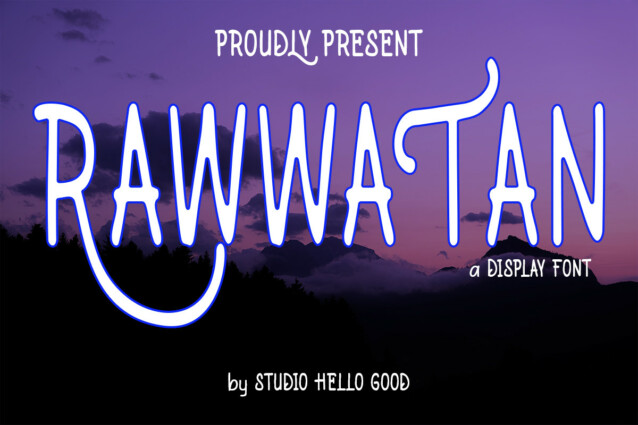
Rawwatan Font
Rawwatan Font is a handwritten font that looks simple and simple, this font is inspired by handwriting that comes from children so it is perfect for crafts and also for your other works, make sure this font becomes your collection for your computer or other device .